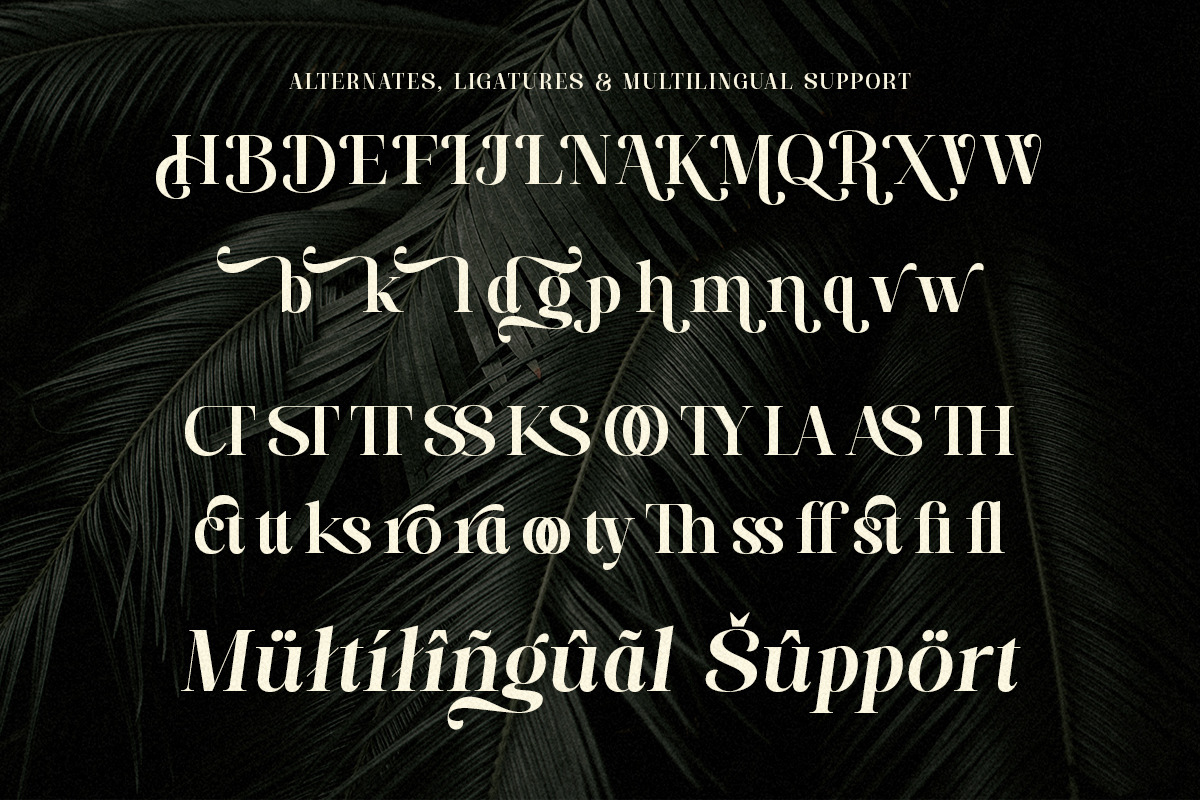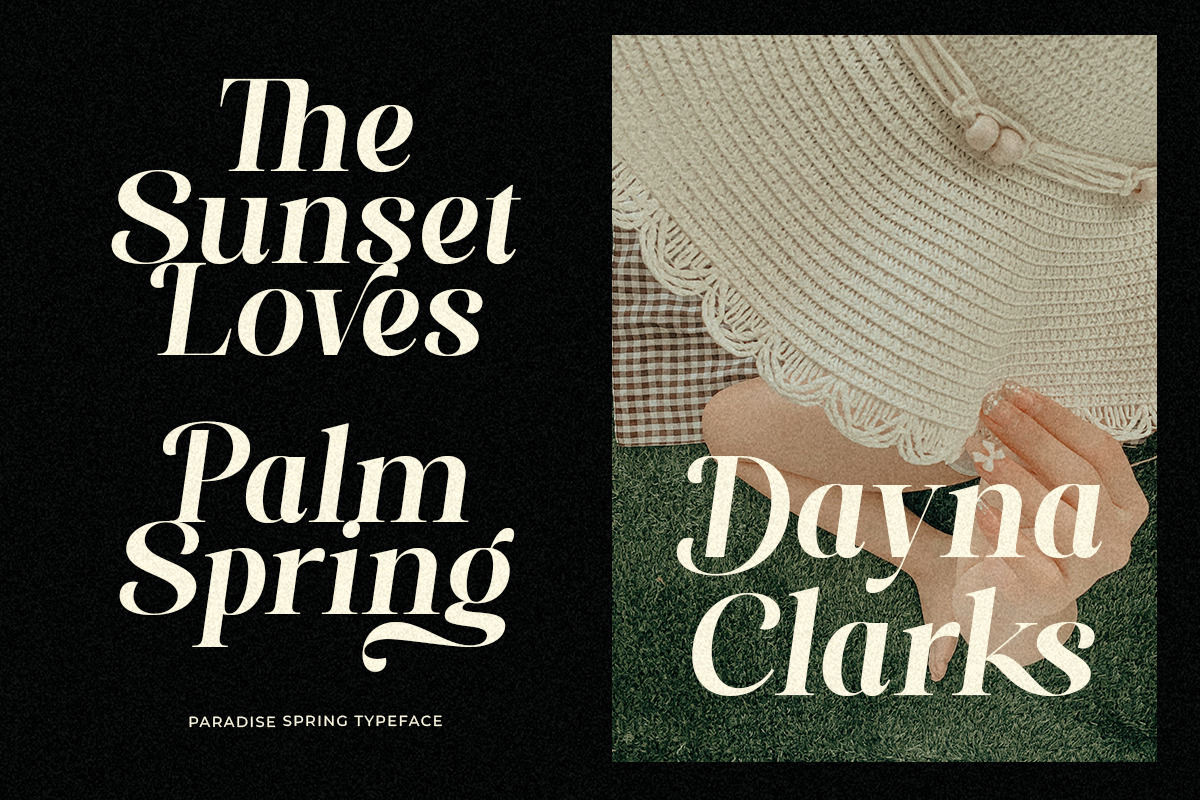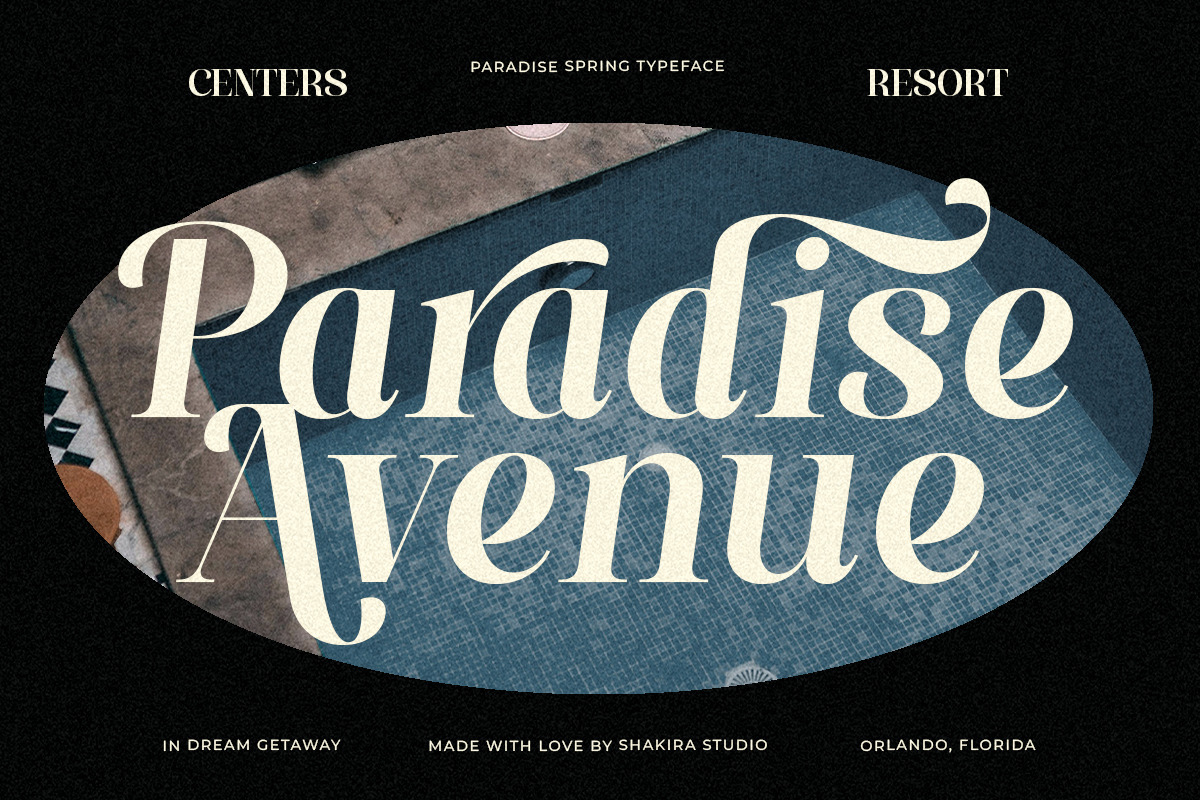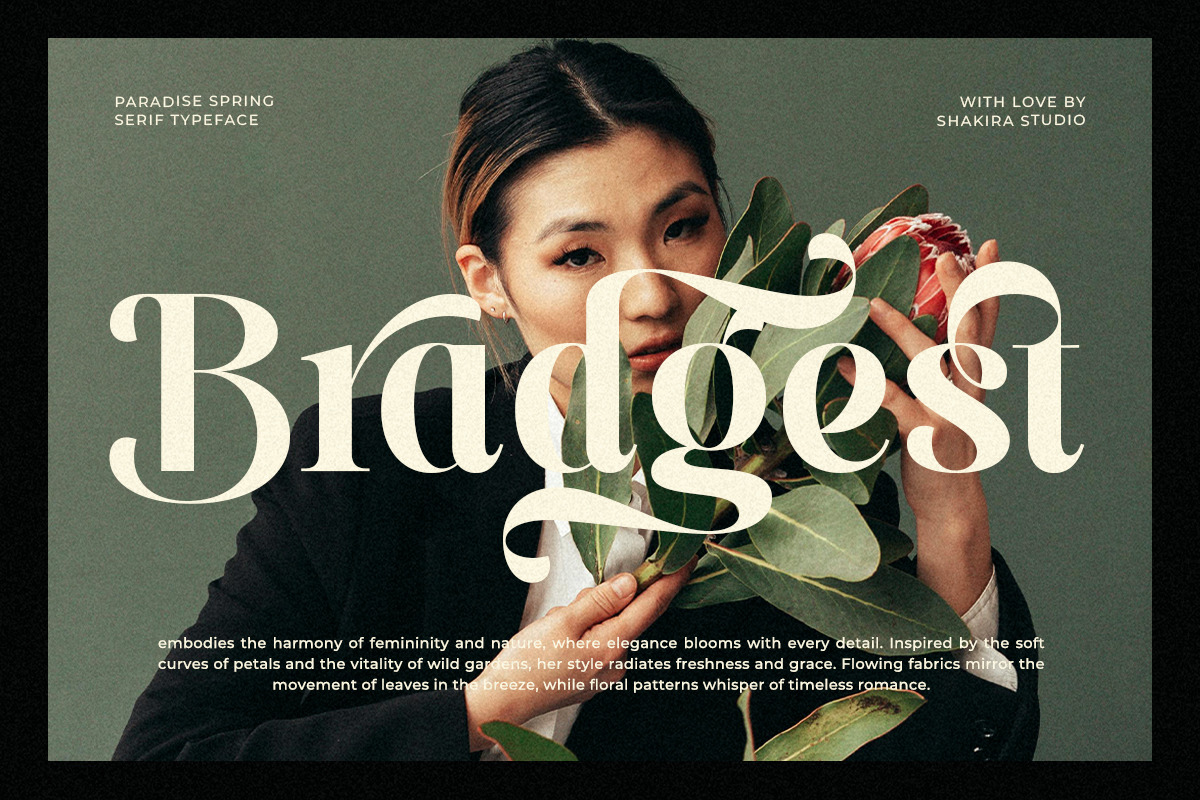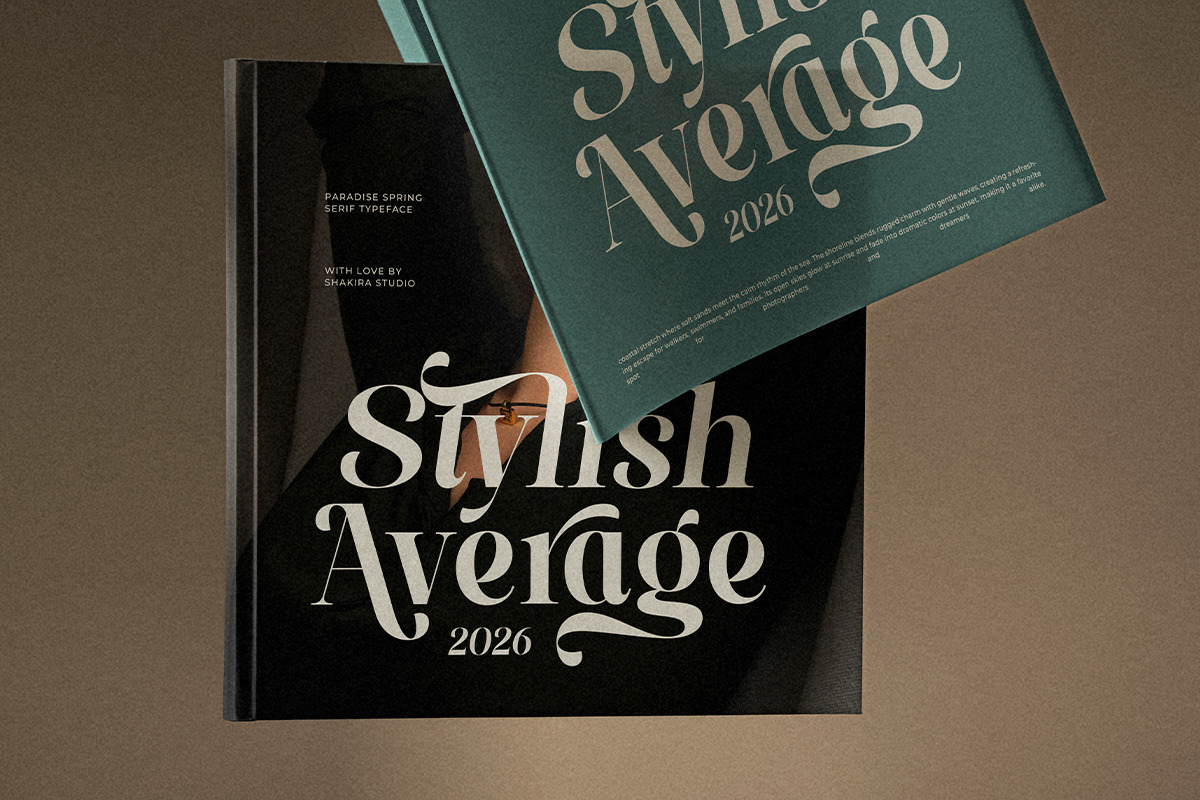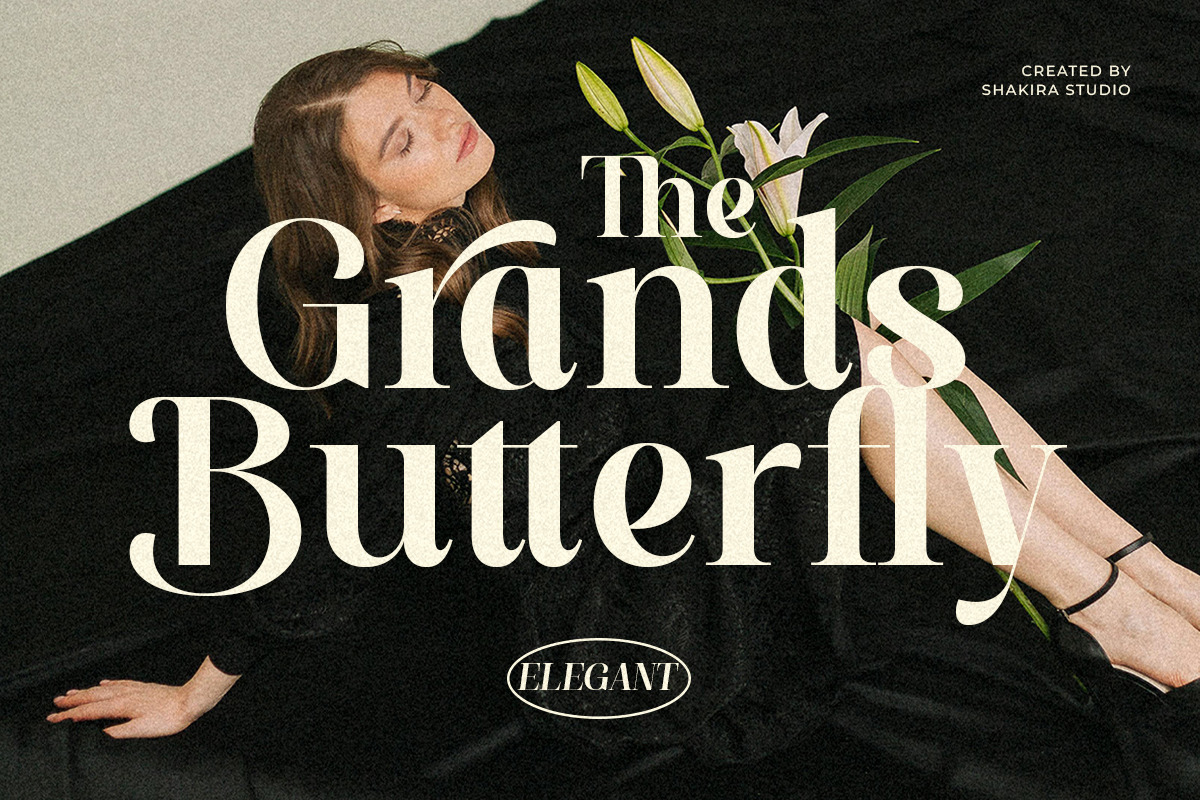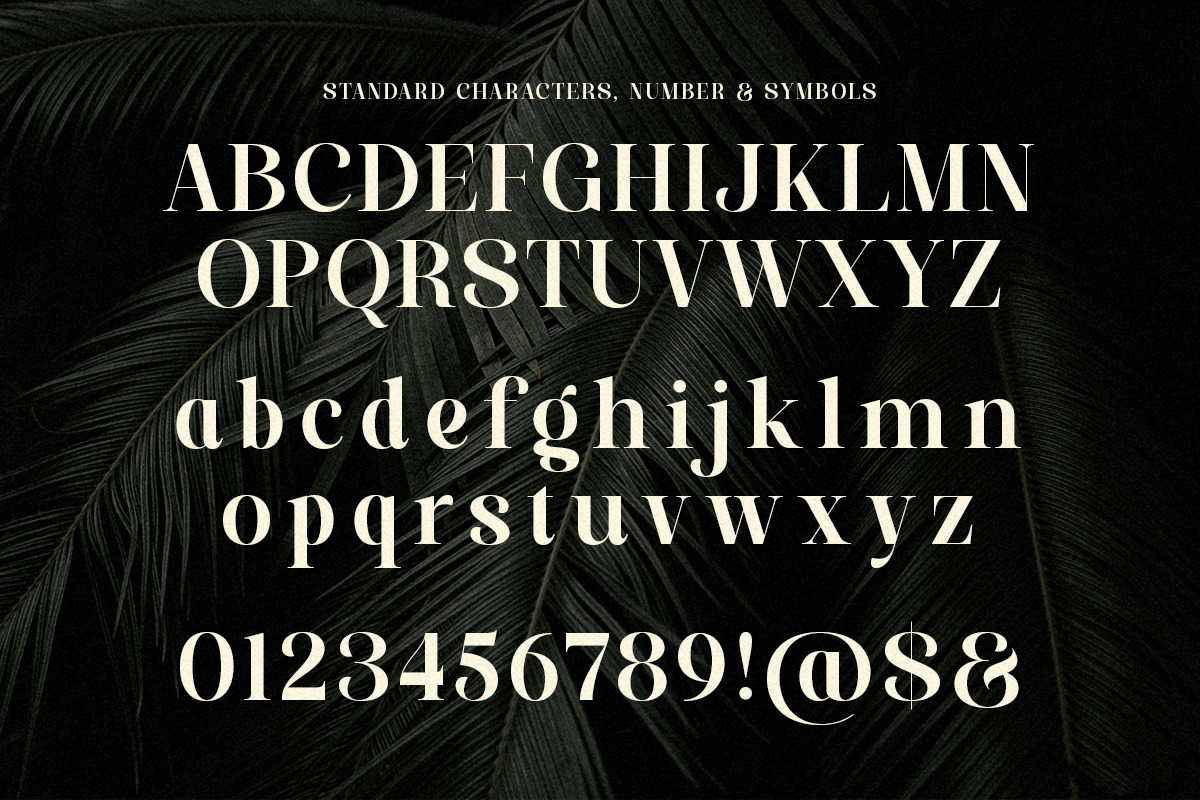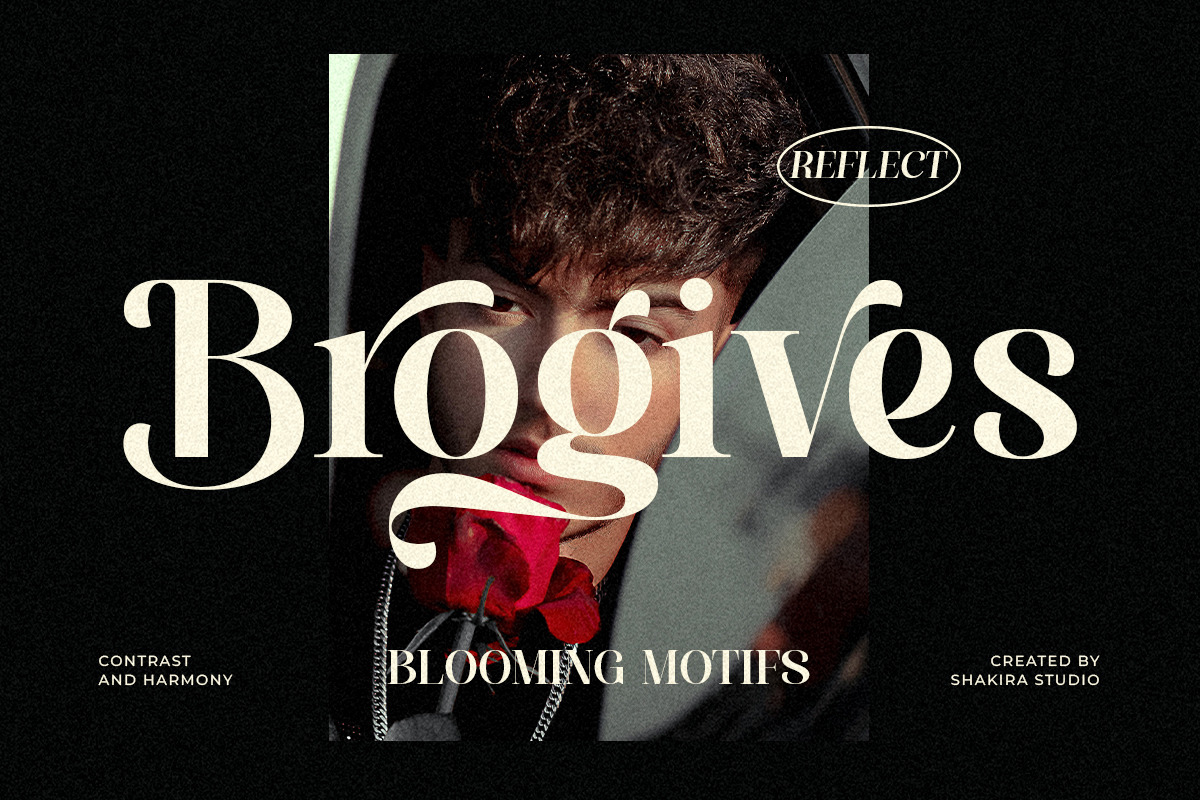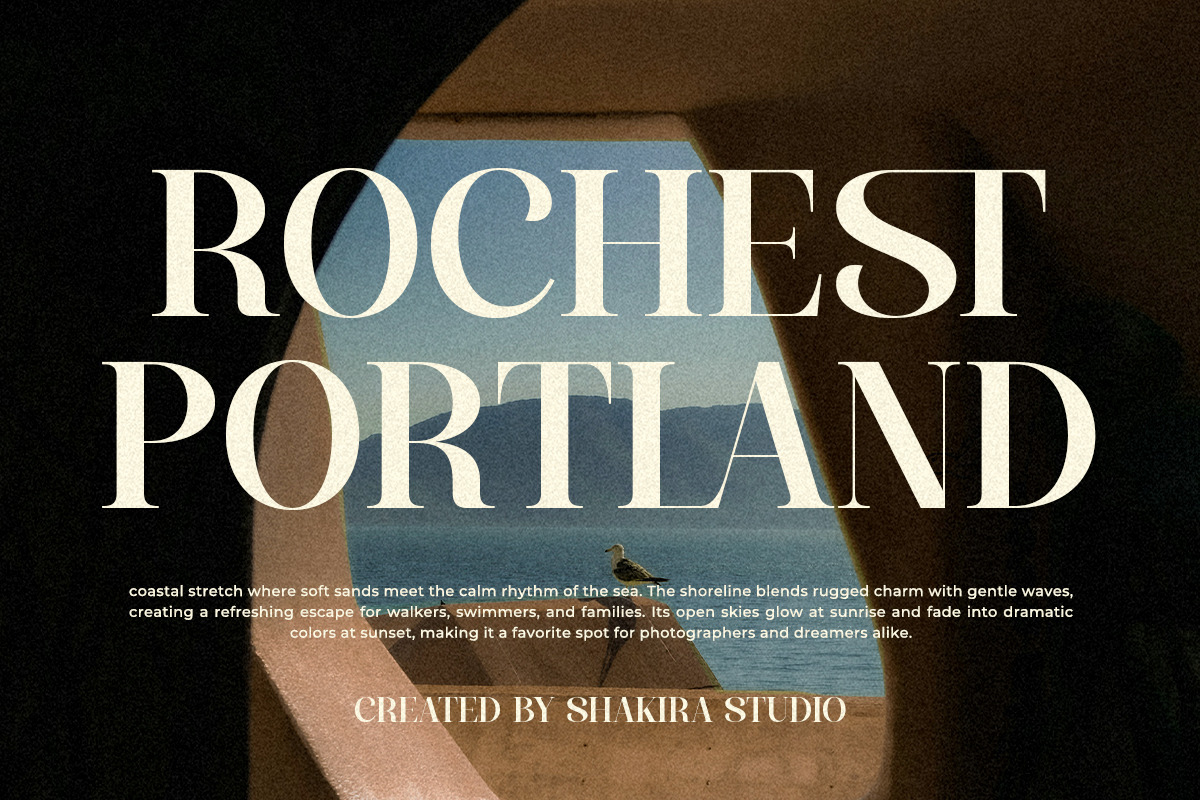
Paradise Spring - Soft Elegant Serif
Meet Paradise Spring, a modern serif font designed with softness and elegance in mind. Inspired by warm seasons and relaxed luxury, this font brings a natural flow to branding, editorials, and lifestyle visuals.
Paradise Spring is ideal when you want your design to feel refined, calm, and effortlessly beautiful.
- Regular & Italic
- Elegant alternates
- Smooth serif strokes
Perfect For Lifestyle branding, fashion labels, resort identity, wellness brands, editorials, magazines, and social media templates.